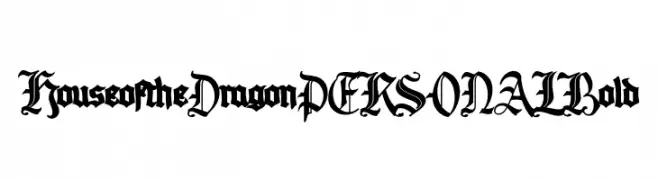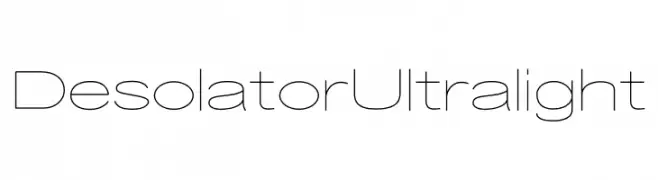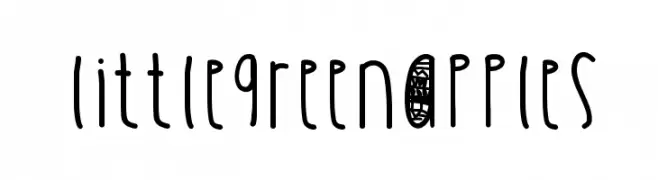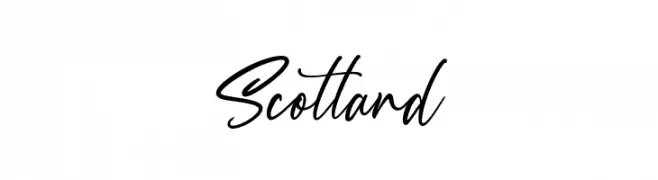
A bold, medieval-inspired font with intricate, dramatic styling.
A bold, fluid script font with interconnected letters and a lively, handwritten style.
A graceful and elegant script font with high contrast and flowing curves.
A sleek, ultralight font with geometric lines and a modern aesthetic.
A playful, hand-drawn font with a whimsical and friendly style.
A bold, condensed font with a modern and elegant style.
A bold, italic, and playful font with a handwritten style.
A playful, whimsical font with elongated, rounded characters.
A bold, decorative font with a 3D effect and intricate patterns.
An elegant and fluid script font with a handwritten appearance.